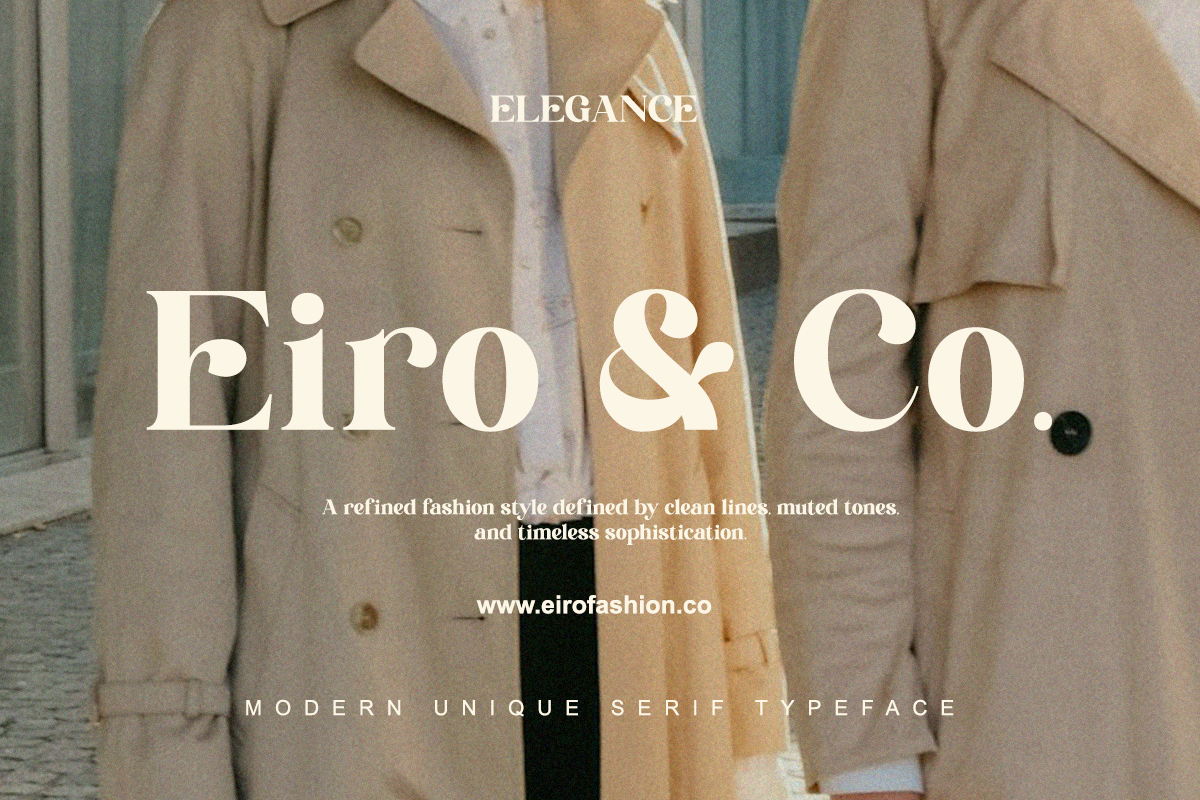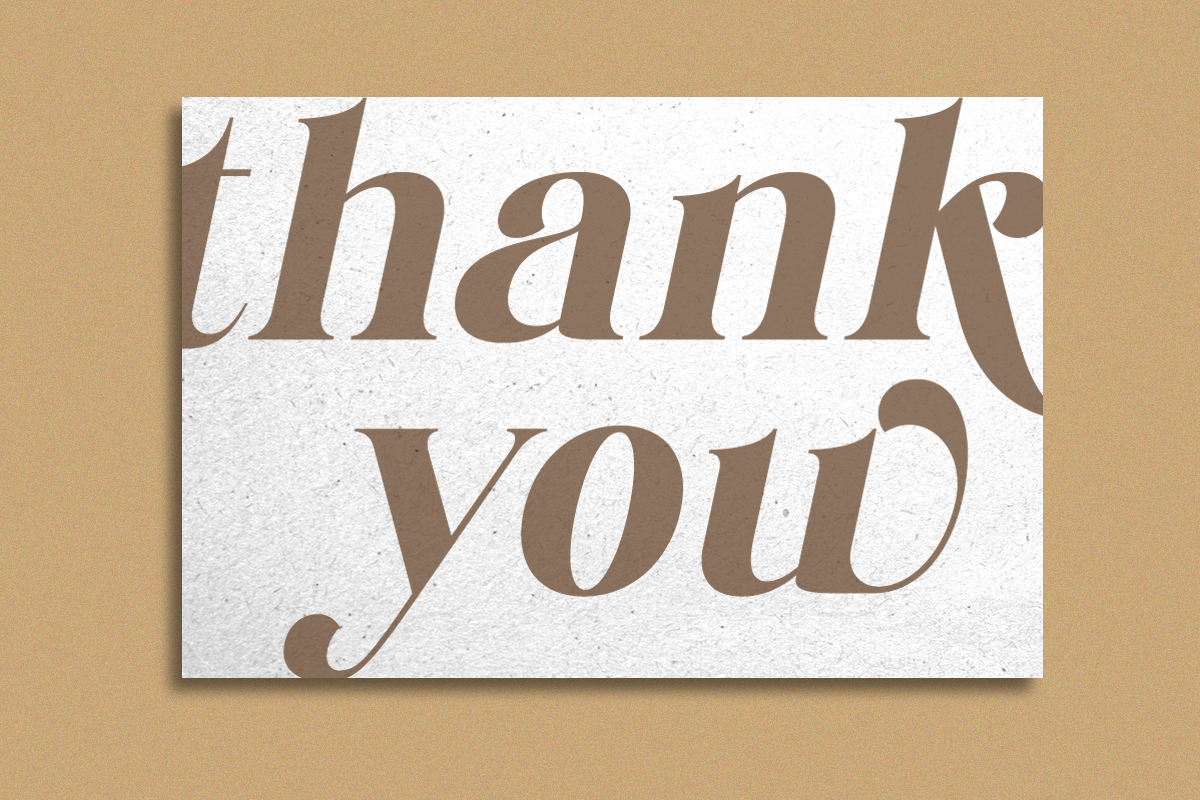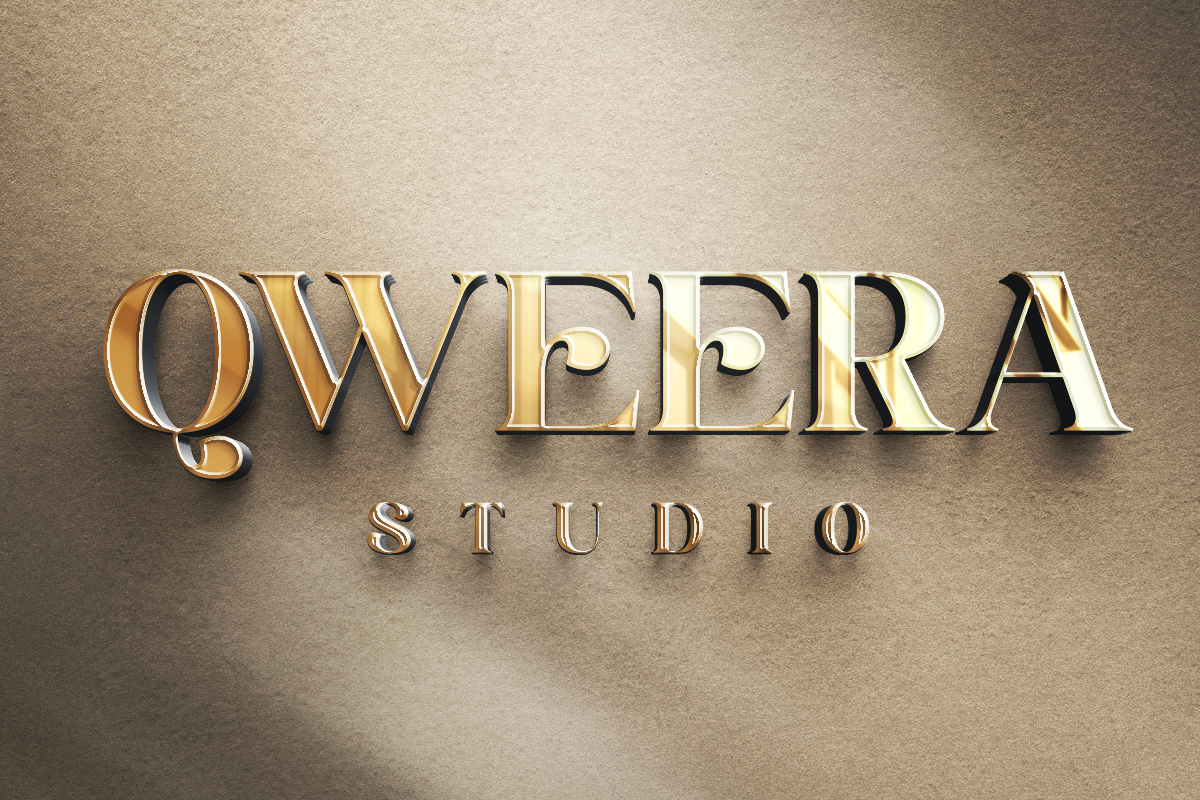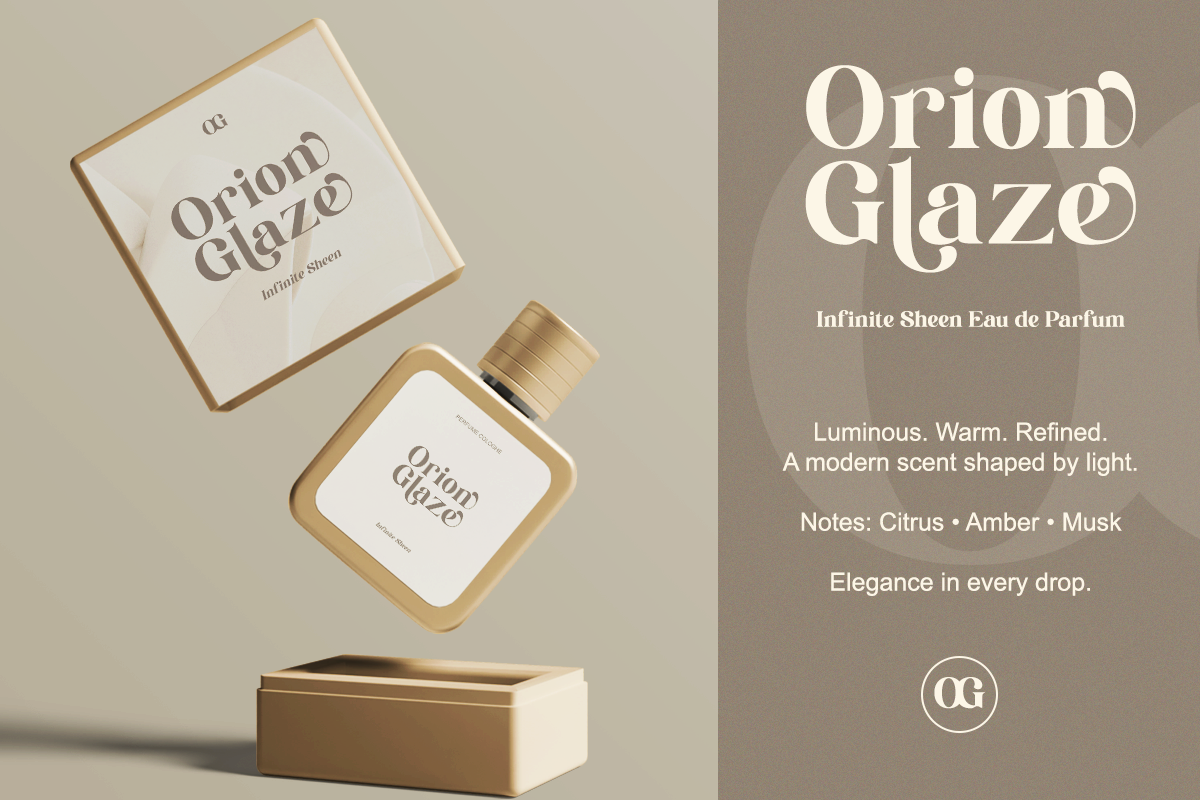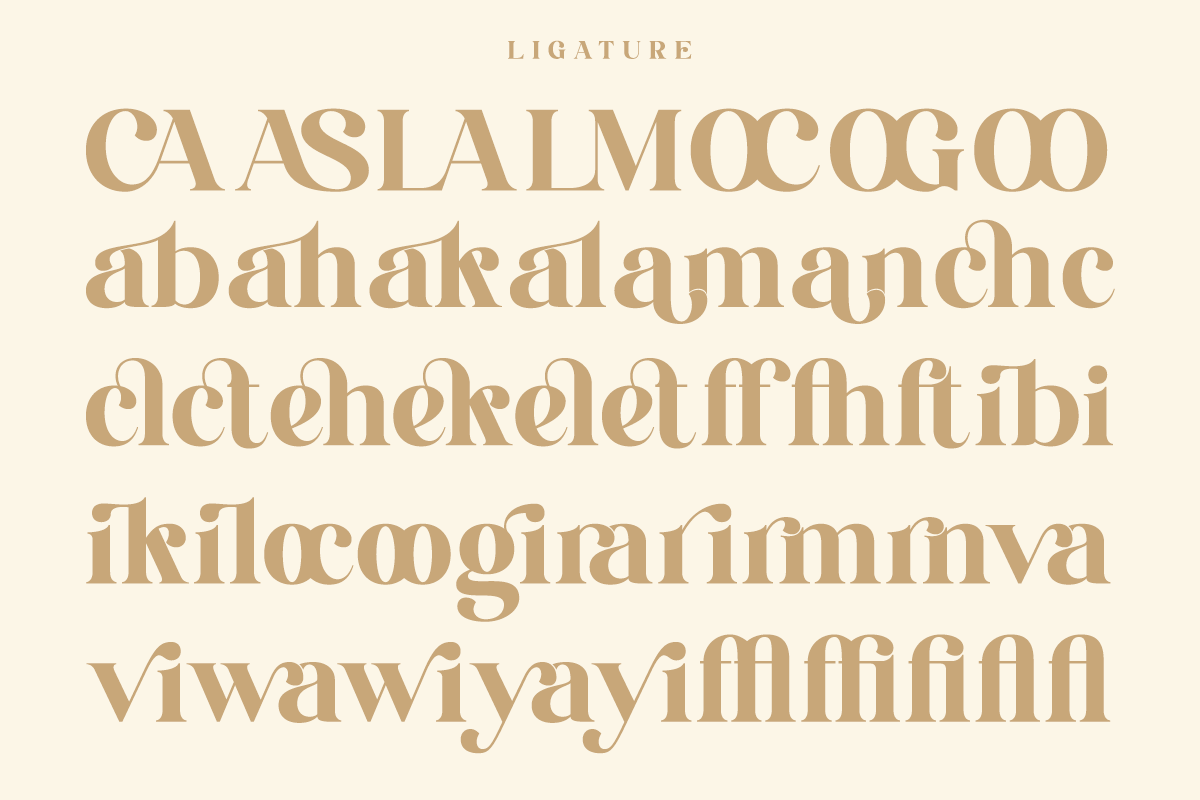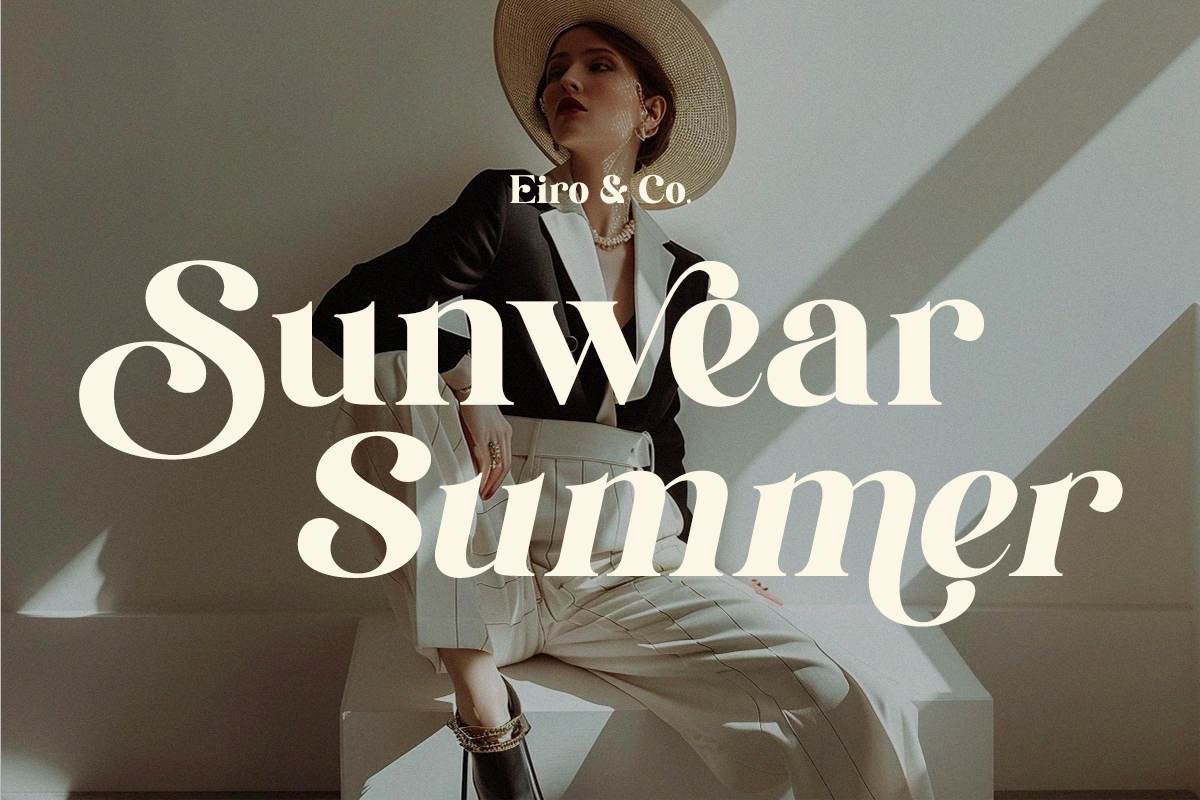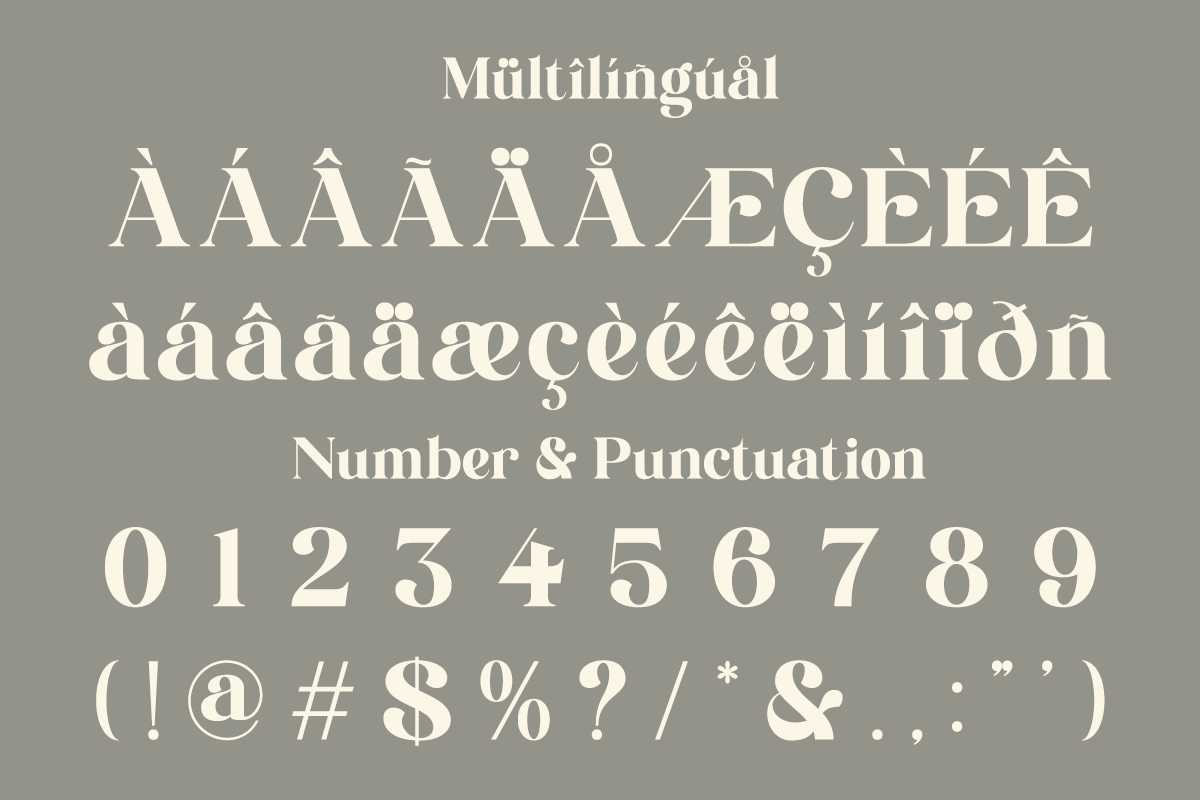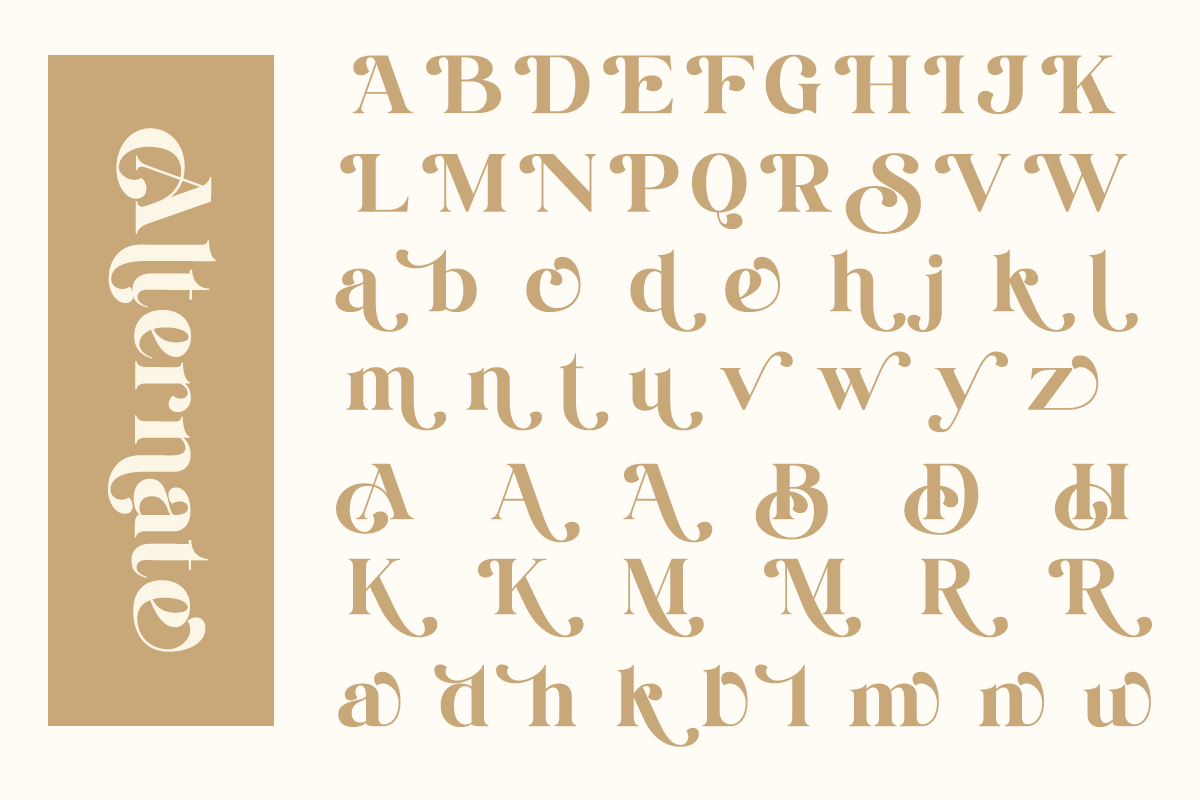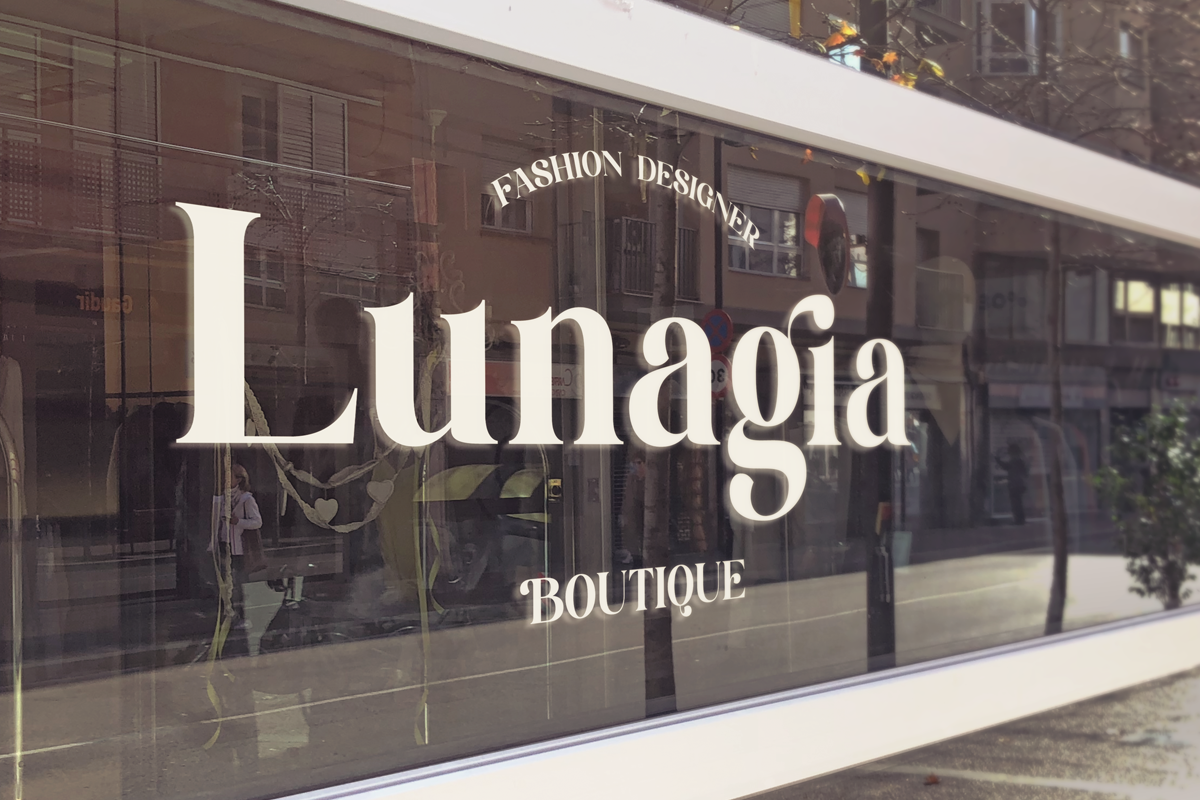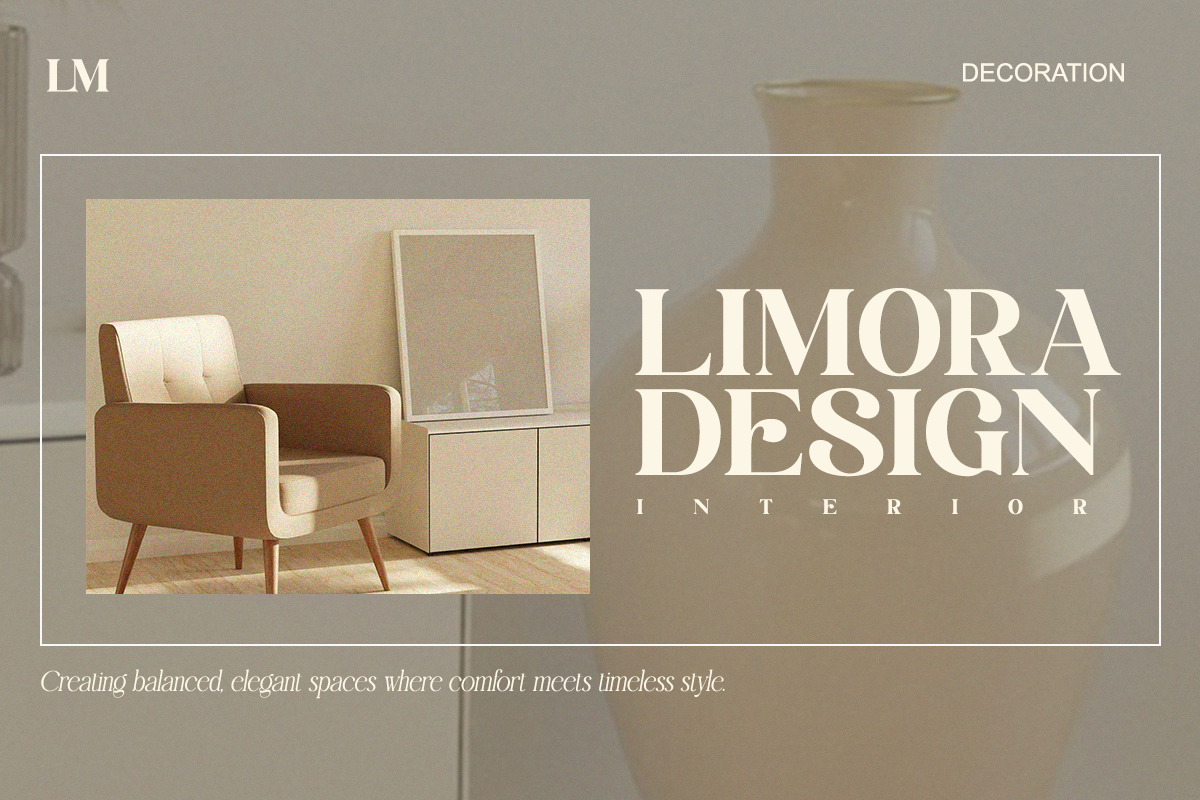
Modern Luxury Serif - Rocalie
Meet Rocalie, a modern serif typeface that blends timeless elegance with clean contemporary structure.
With its graceful curves and confident serif forms, Rocalie brings sophistication to branding projects, fashion campaigns, packaging, and editorial layouts.
Balanced, elegant, and versatile — perfect for modern visual identities.
- Regular & Italic
- Modern serif design